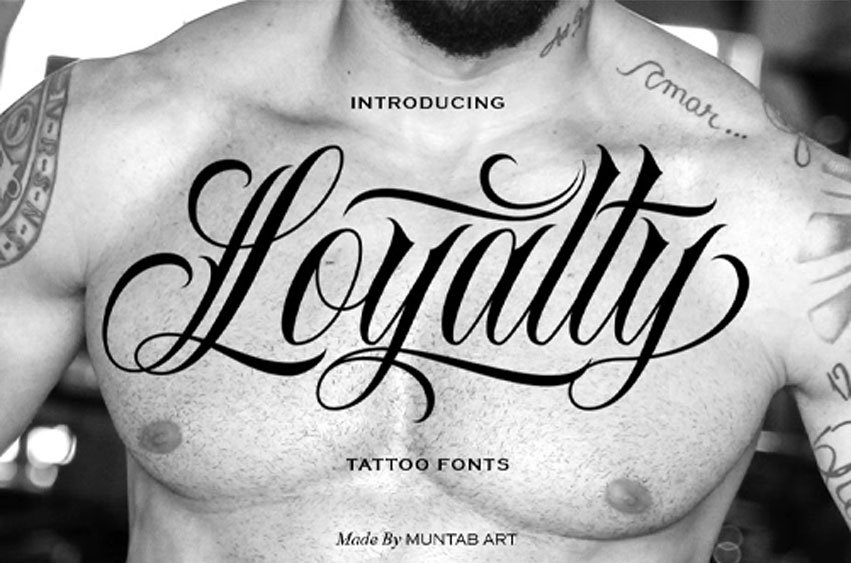
Loyalty Tattoo Font is a bold script tattoo rooted in classic tattoo culture and street lettering. Built with sharp curves, heavy flow, and aggressive swashes, this font brings a raw and unapologetic attitude to your designs.
It’s made to stand out — whether you’re working on statement pieces that need strong visual impact.
Every letter is designed to connect smoothly while still keeping that hand-drawn, gritty feel.
Perfect for tattoo lettering, logos, and bold typography work.